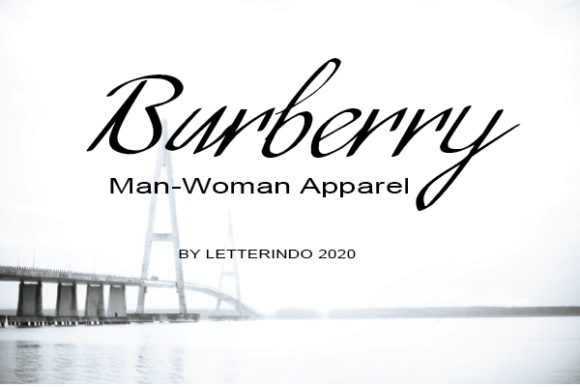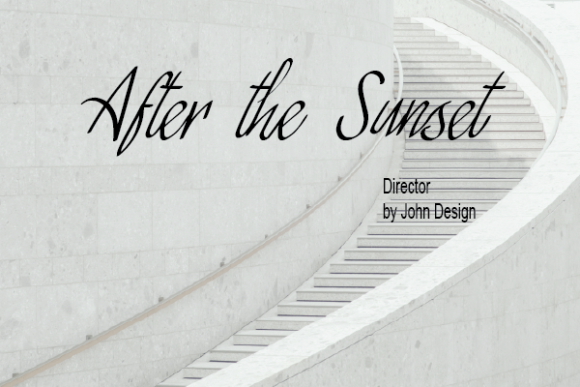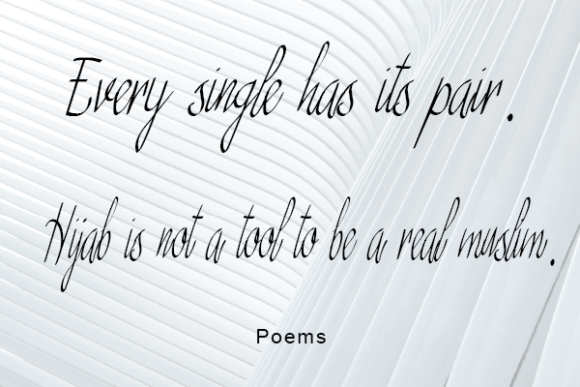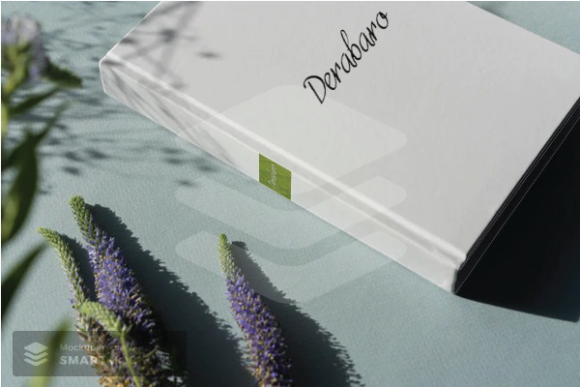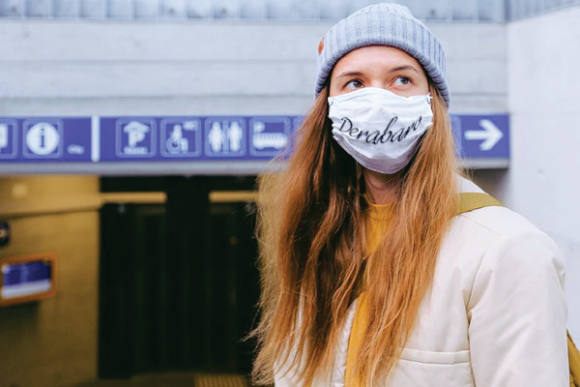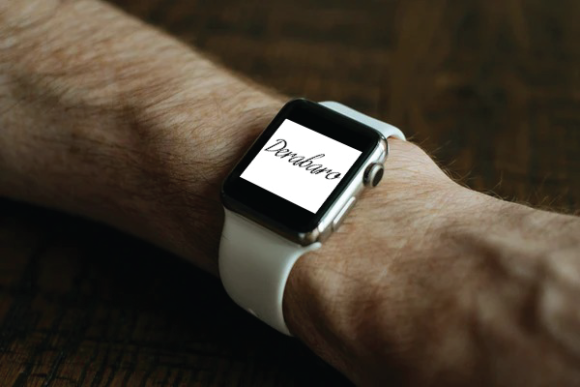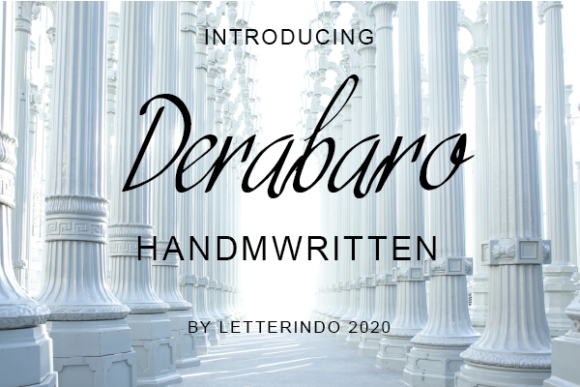
Introducing Derabaro Font: Elevate Your Designs with Elegance and Friendliness
In the world of typography, fonts play a crucial role in conveying messages, evoking emotions, and creating lasting impressions. For designers and crafters, finding the perfect font that strikes a balance between elegance and friendliness can be a daunting task. However, look no further than Derabaro Font, a magical script font that embodies the perfect blend of classic style and approachable feel.
The Story Behind Derabaro Font
Derabaro Font is a carefully crafted script font that boasts an incredibly classic style, reminiscent of traditional calligraphy. With a touch of elegance, this font is designed to add a level of sophistication to any design project. Whether you’re working on a branding campaign, a wedding invitation, or a packaging design, Derabaro Font is the perfect choice for creating original and outstanding designs.
Key Features of Derabaro Font
- Classic Style: Derabaro Font features a timeless, classic style that exudes elegance and refinement.
- Magical Script: The font’s script style adds a touch of whimsy and sophistication to any design.
- Friendliness: Despite its classic style, Derabaro Font maintains a friendly feel, making it perfect for designs that require approachability.
- Versatility: This font is suitable for a wide range of design projects, from branding and advertising to packaging and editorial design.
Why Choose Derabaro Font?
So, what sets Derabaro Font apart from other fonts in the market? Here are a few reasons why designers and crafters love this magical script font:
- Unique Character: Derabaro Font has a distinct character that adds a touch of personality to any design.
- High Readability: The font’s clear and legible design ensures that your message is conveyed effectively.
- Customization Options: With Derabaro Font, you can experiment with various styling options to create a unique look that suits your design needs.
Design Inspiration with Derabaro Font
Derabaro Font is a versatile design tool that can be used in a variety of creative projects. Here are some design inspiration ideas to get you started:
- Wedding Invitations: Add a touch of elegance to your wedding invitations with Derabaro Font.
- Branding and Packaging: Use Derabaro Font to create a sophisticated brand identity that stands out.
- Advertising and Marketing: Make a lasting impression with Derabaro Font’s classic style and friendly feel.
- Editorial Design: Use Derabaro Font to add a touch of elegance to your editorial designs, such as magazines and newspapers.
In conclusion, Derabaro Font is a magical script font that offers the perfect blend of elegance and friendliness. With its classic style, versatile design, and high readability, this font is an excellent choice for designers and crafters looking to create original and outstanding designs. Whether you’re working on a branding campaign, a wedding invitation, or a packaging design, Derabaro Font is sure to elevate your designs to the next level.